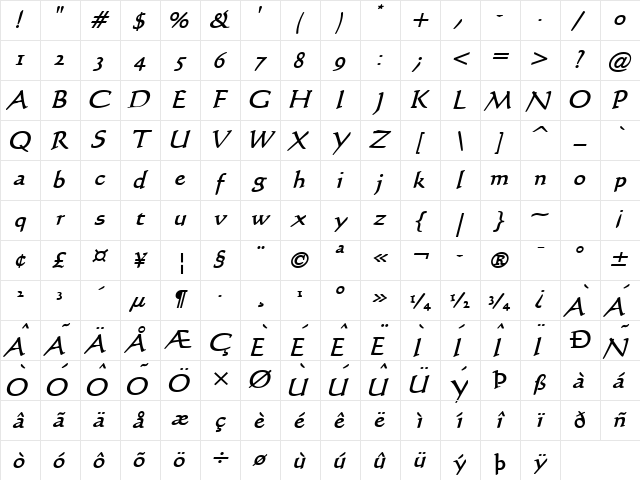
Calli 109 BoldItalic
Design Context for Calli 109
Calli 109 is a composed and adaptable typeface that performs quietly and consistently across a wide range of design contexts. The slanted form adds forward momentum and visual energy. Its bold stroke weight gives it real presence on the page.
Pro Tip: Use Calli 109 for emphasis, pull quotes, and subheadings where its slanted energy can add rhythm to the layout.